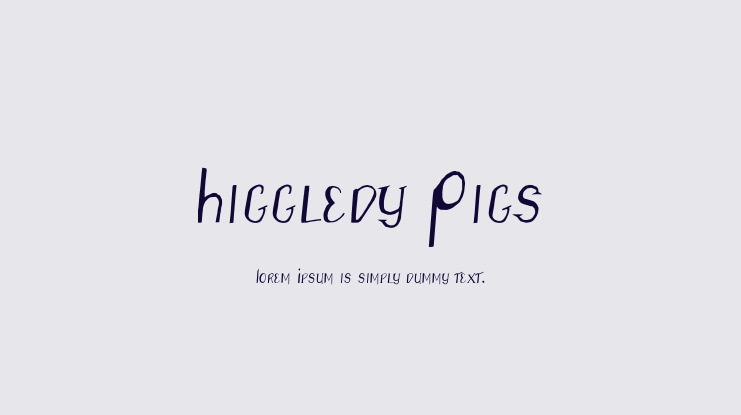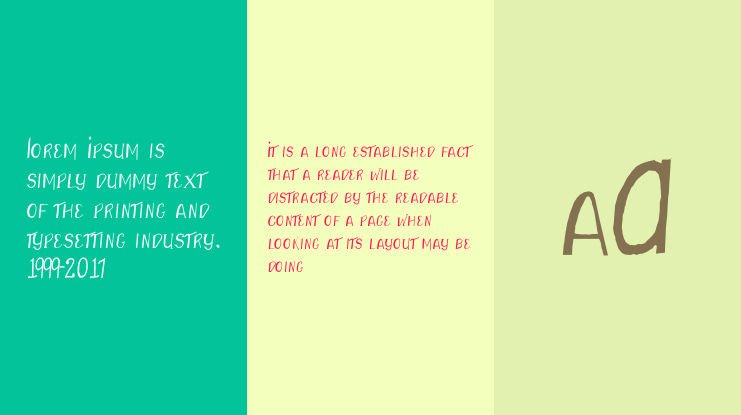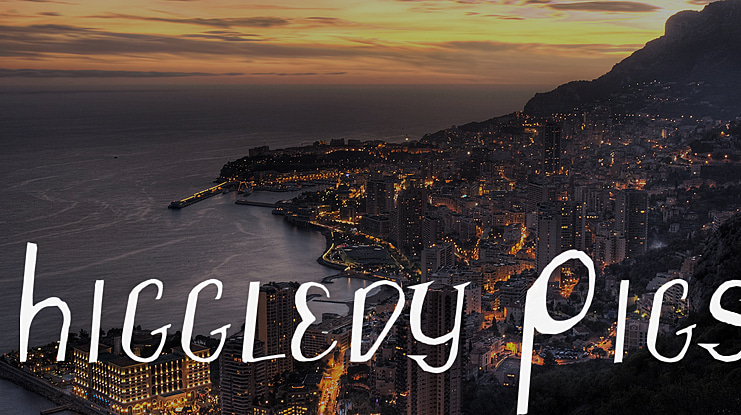
Higgledy Pigs Font Family
This family of fonts is created as a fun-themed hand-written printed font. Higgledy Pigs font has the capital shape and lowercase shape inverted. The size of the capitals is bigger than it would be as a lowercase letter.
Higgledy Pigs Big has large lowercase letters and small uppercase letters with the shapes exchanged. Because of this, it looks larger.